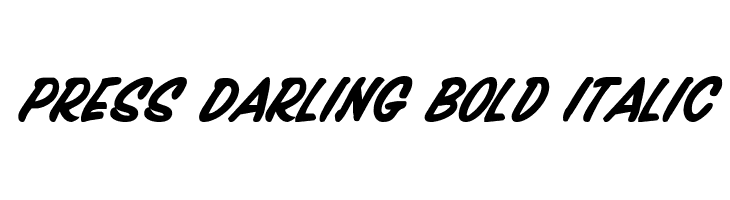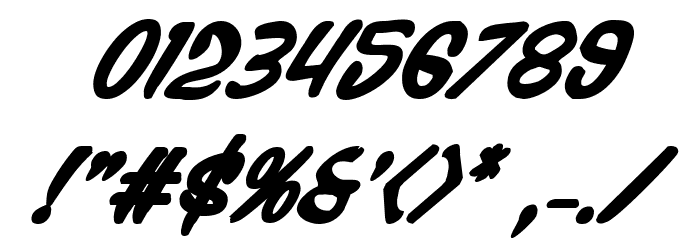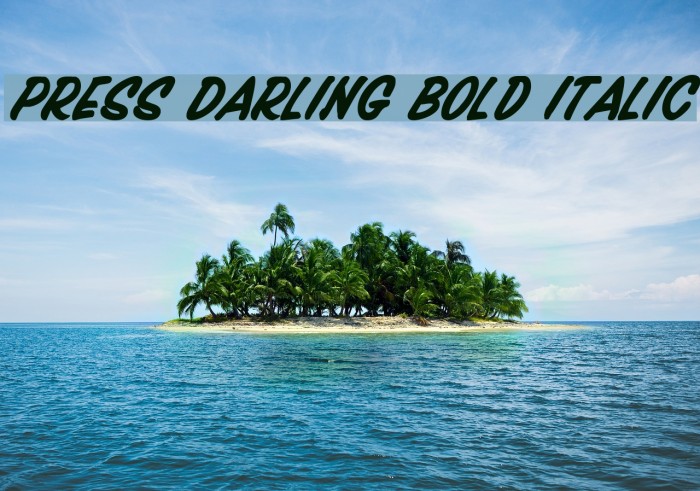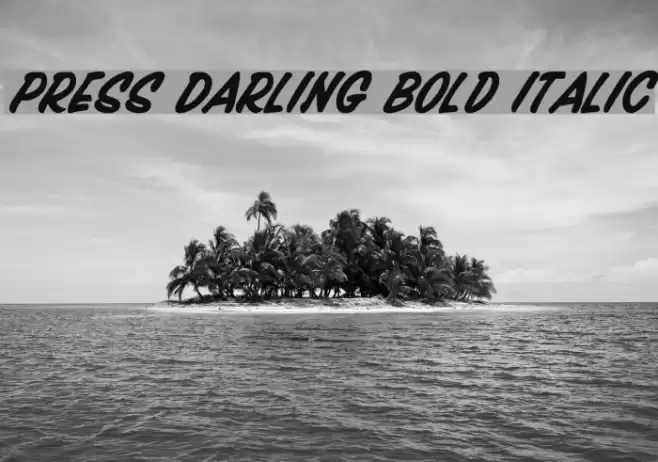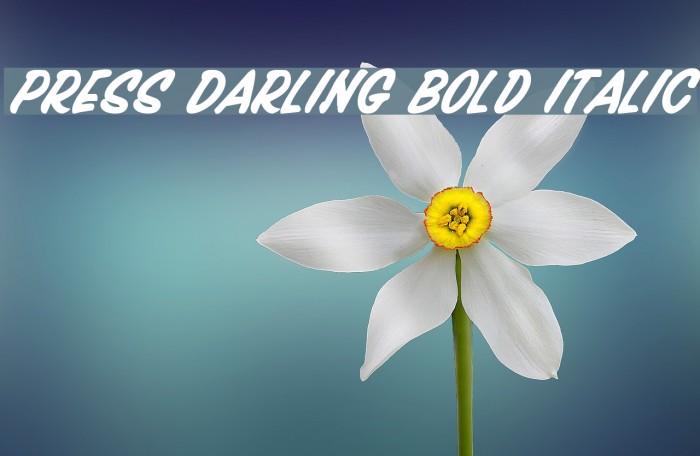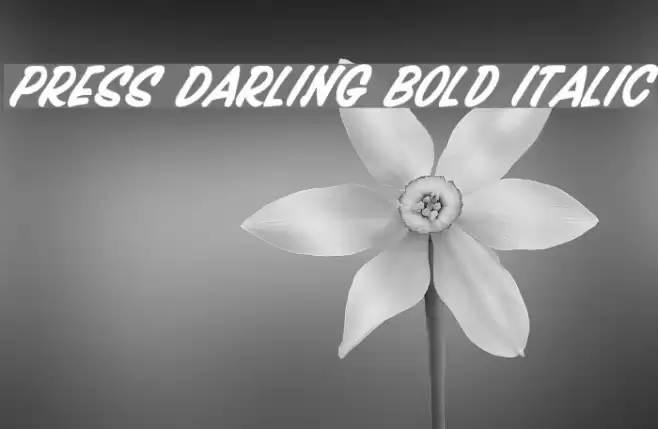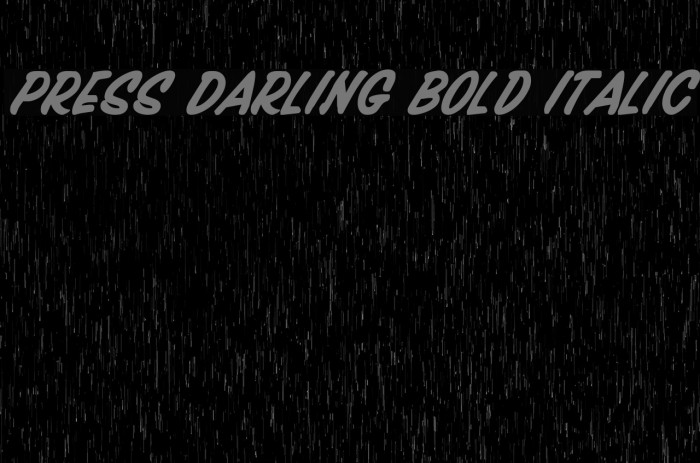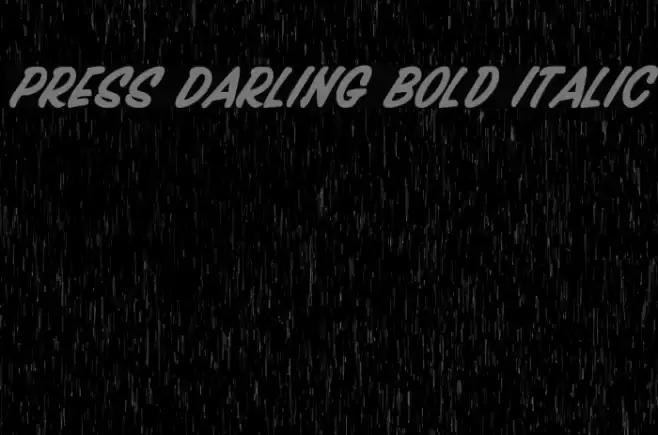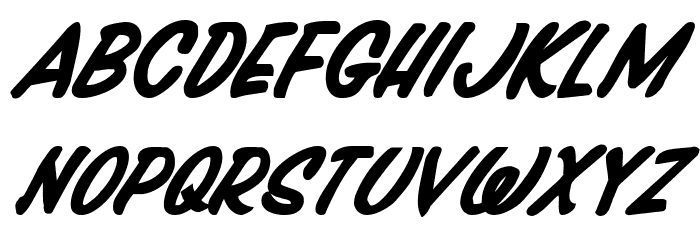
Press Darling Bold Italic Font
Press Darling Bold Italic Description
This font features a bold and dynamic style with a strong italic slant, giving it a sense of movement and energy. The characters are thick and rounded, with a playful yet assertive appearance. The uppercase and lowercase letters maintain a consistent flow, while the numerals and special characters complement the overall design. The font's boldness and slant make it highly visible and impactful, suitable for attention-grabbing headlines or creative projects.
| Proposed Projects | Ideal for posters, logos, branding, and any design requiring a bold statement. |